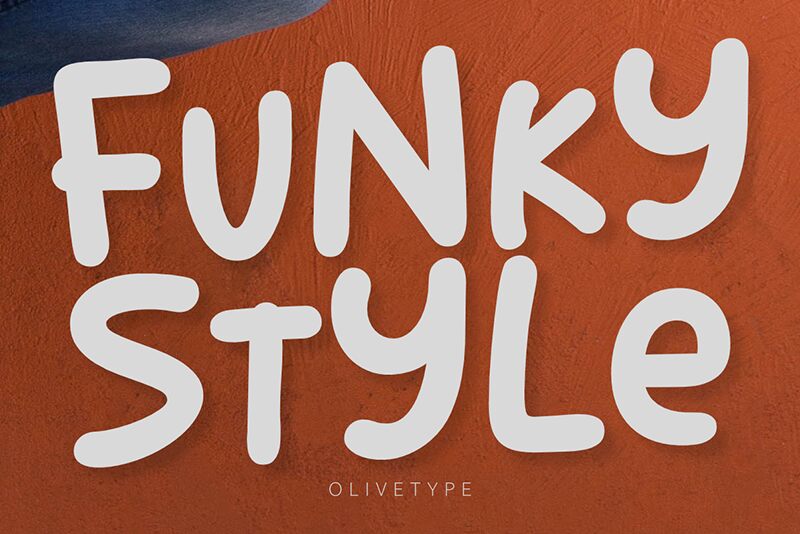
Funky Style font by Olivetype is a dynamic cartoon display font with retro-inspired elements. Expressive and groovy, it has a lively and energetic style that is nostalgic yet vibrant.
Funky Style is perfect for logotypes, advertising material, social media designs, branding designs, packaging designs, merchandise print design like posters and T-shirt prints as well as web design where it can be used with HTML/CSS on websites or in applications.